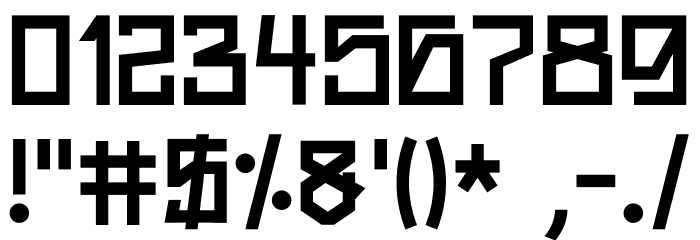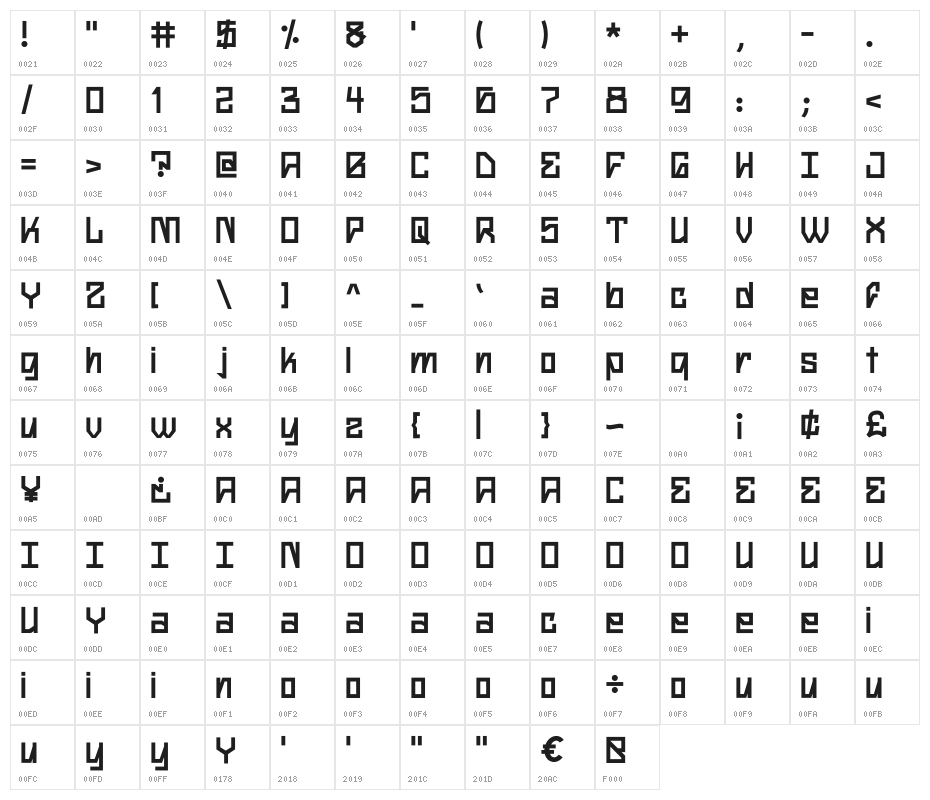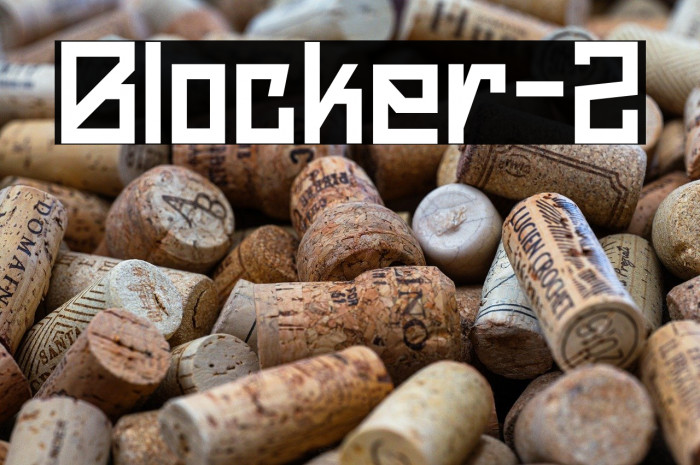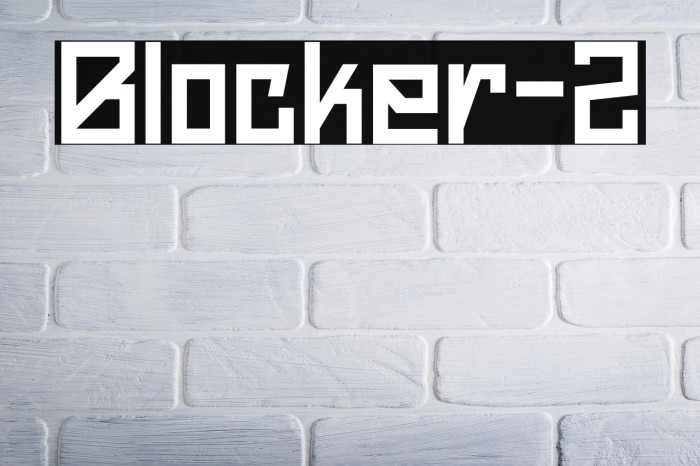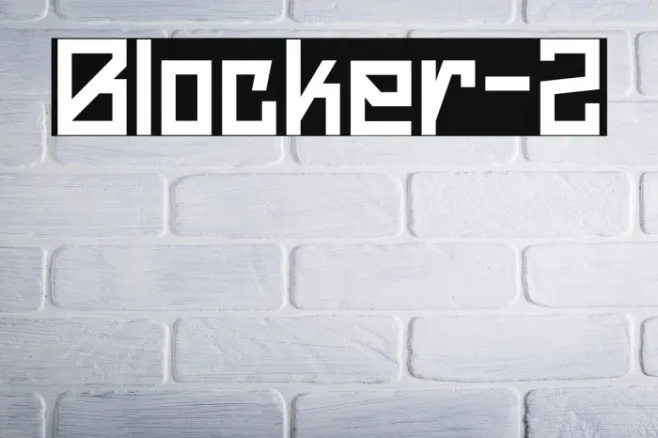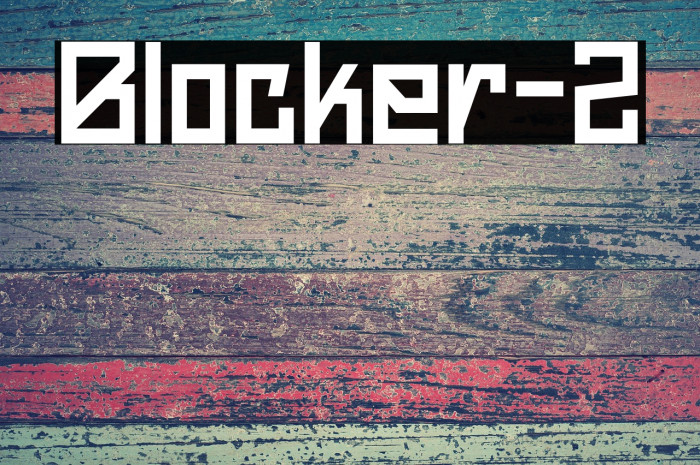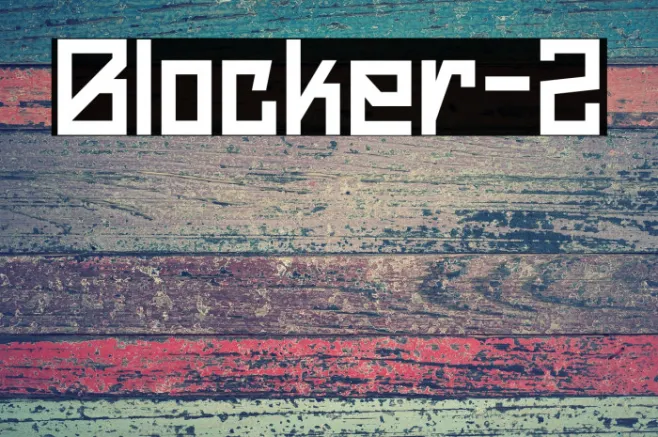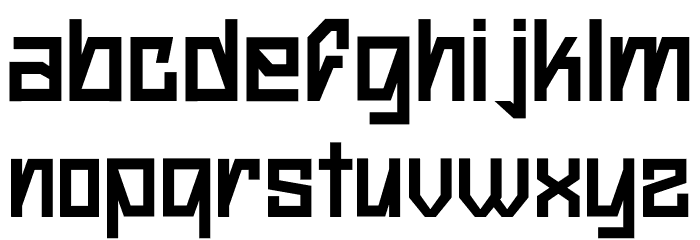
Blocker-2 Font
Blocker-2 Description
This font features a bold, geometric design with sharp angles and a blocky structure. Each character is crafted with a consistent thickness, giving it a strong and impactful presence. The uppercase letters are particularly striking, with a futuristic and industrial feel. The lowercase letters maintain the same boldness, ensuring readability while preserving the unique style. Numbers and special characters are designed to match the overall aesthetic, making this font versatile for various applications. The consistent stroke width across all characters contributes to a cohesive and uniform appearance.